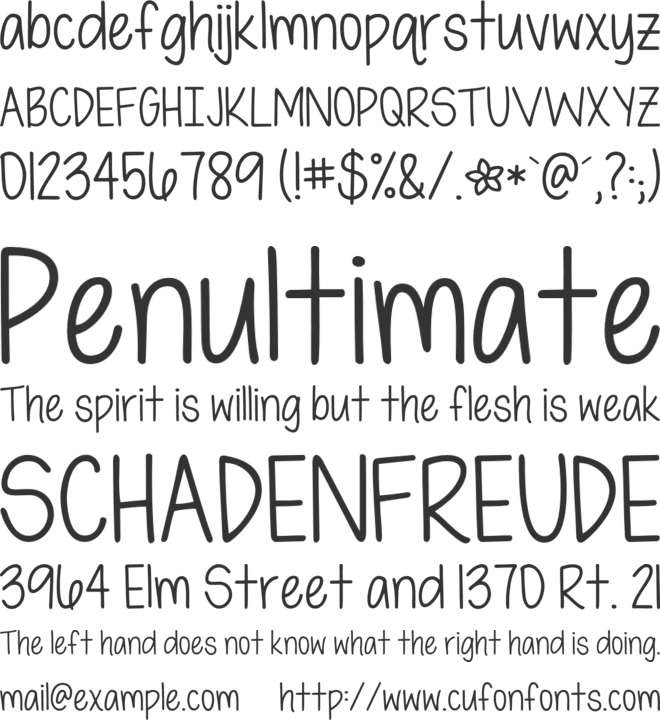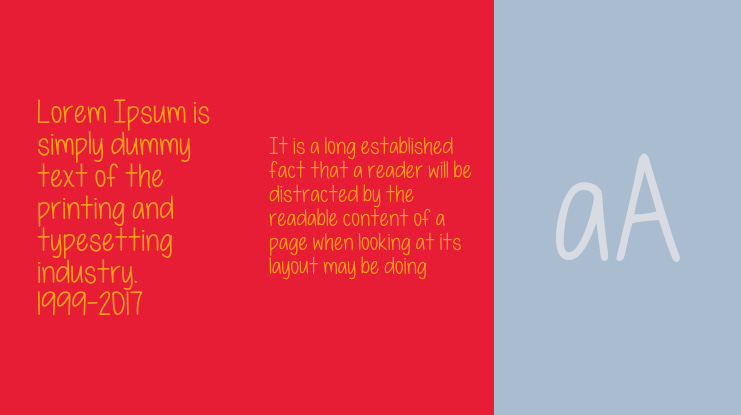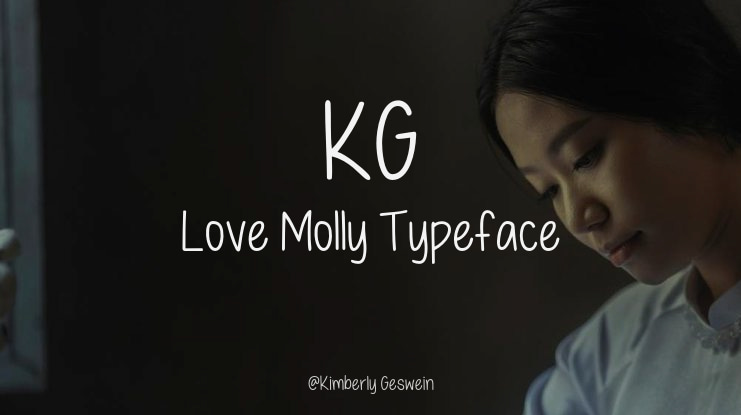
KG Love Molly Font
Kimberly Geswein
The cutest girly handwriting from MOLLY! Submitted via my TikTok handwriting spotlight series, this is the handwriting of Molly and I just love her style!